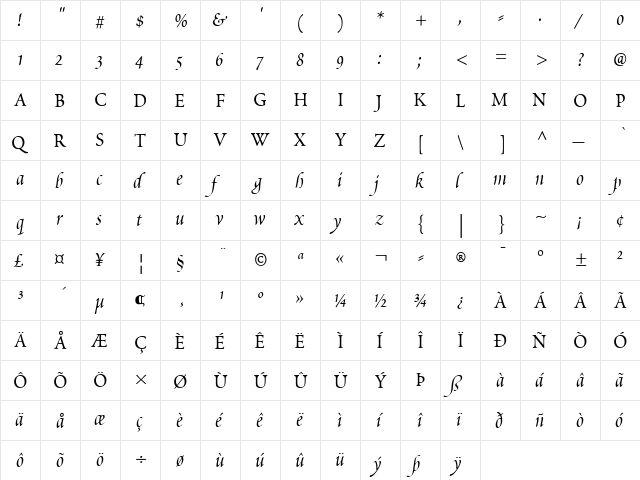
Poetica ChanceryIV Italic
Design Context for Poetica ChanceryIV Typeface
Poetica ChanceryIV is a composed and adaptable typeface that performs quietly and consistently across a wide range of design contexts. Its italic angle brings a sense of urgency and motion to the letterforms.
Pro Tip: Use Poetica ChanceryIV for emphasis, pull quotes, and subheadings where its slanted energy can add rhythm to the layout.